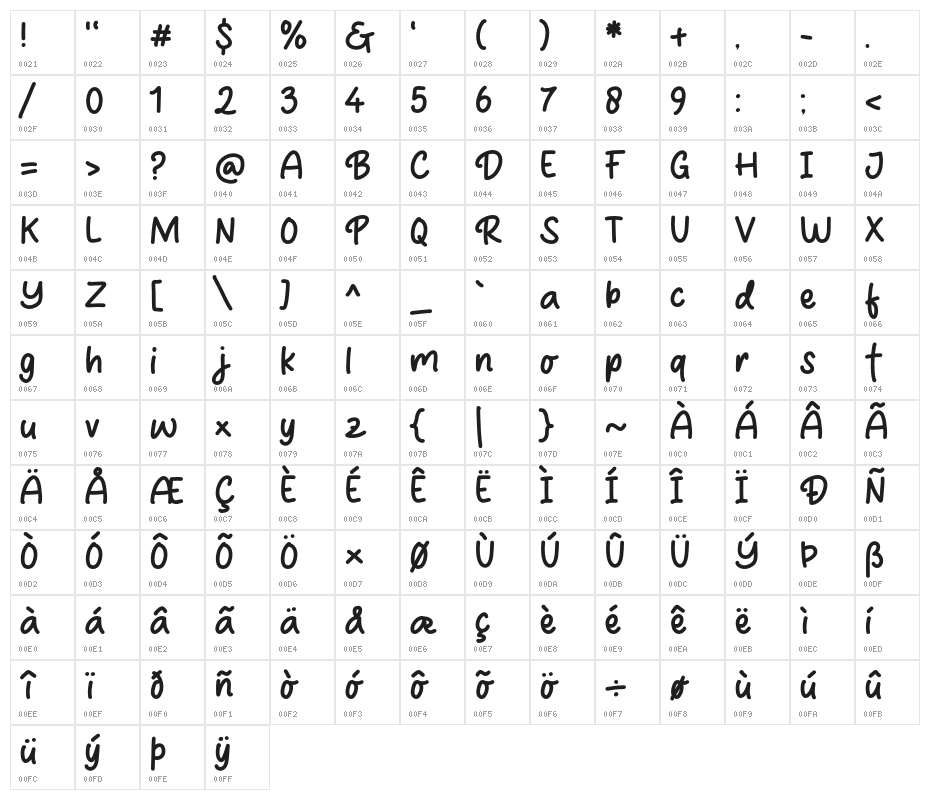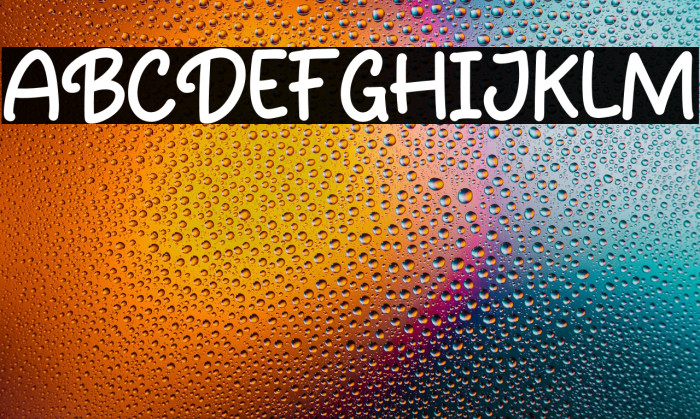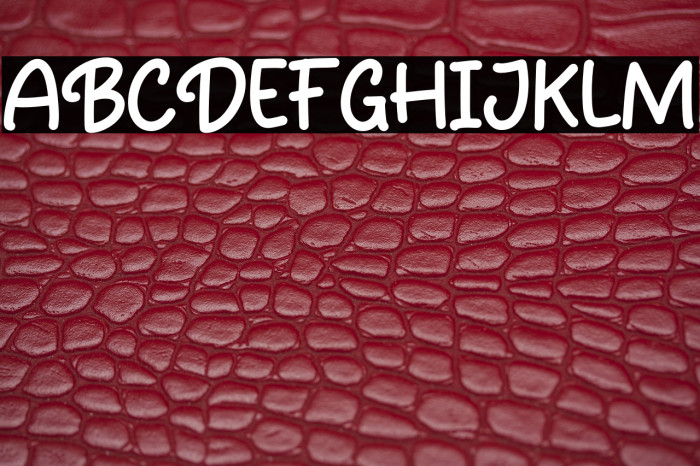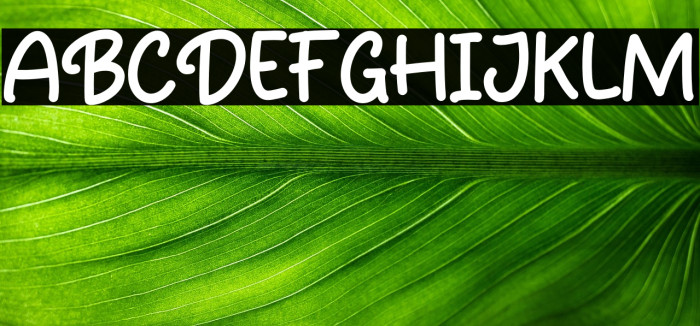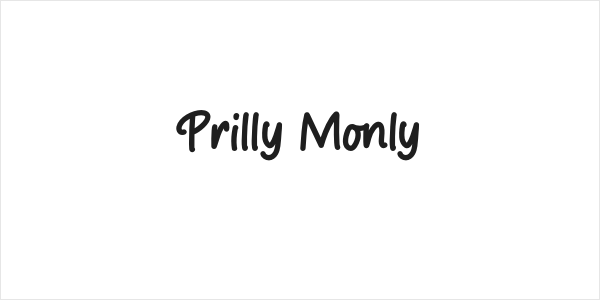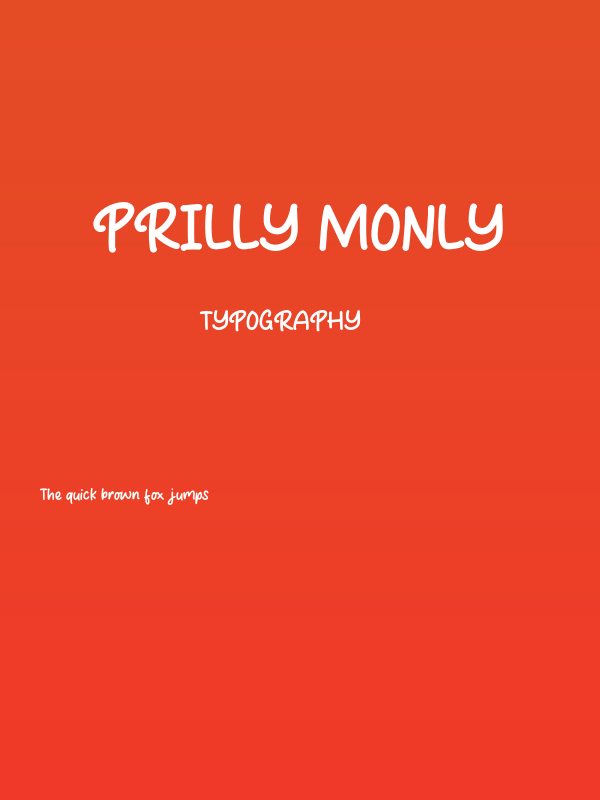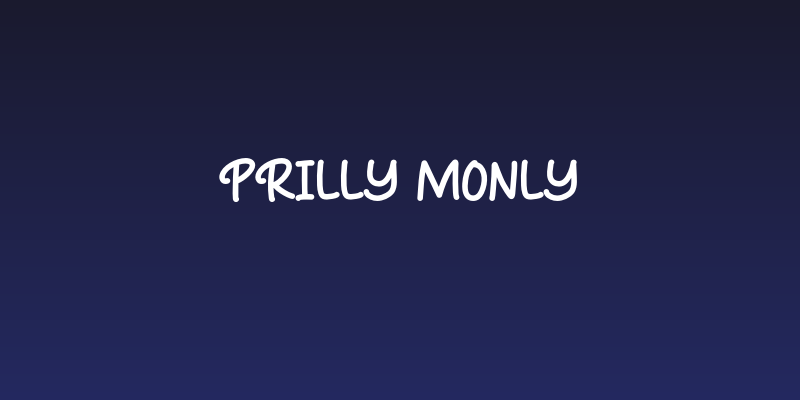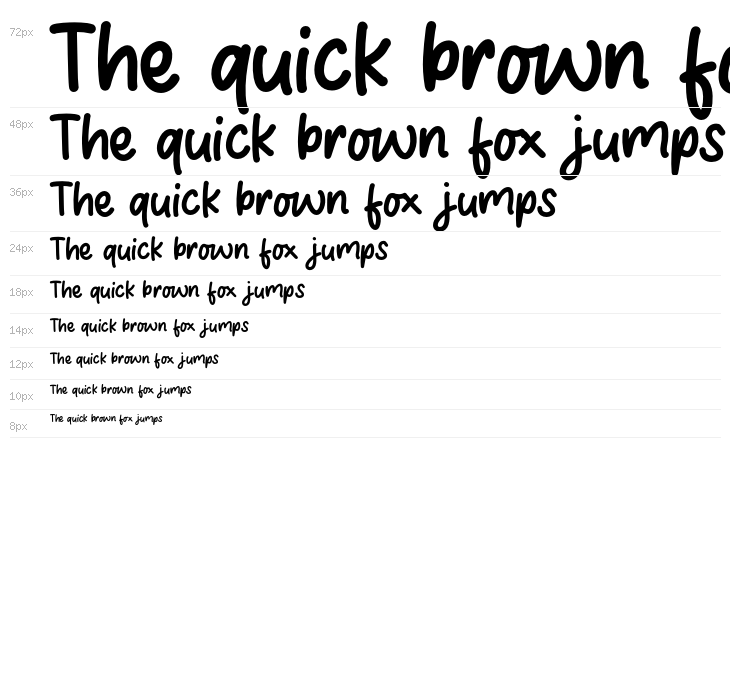
Prilly Monly Font
Prilly Monly Description
This playful and energetic font features a handwritten style with a casual and friendly appearance. The letters are bold and rounded, giving them a soft and approachable feel. The strokes are consistent in width, providing a uniform look across all characters. The uppercase and lowercase letters maintain a cohesive style, with slight variations that add to the font's charm. The numbers and special characters are designed to match the overall aesthetic, making the font versatile for various uses. Its informal style makes it perfect for projects that require a personal touch.
| Use Case | Logos, Headlines, Informal Text |
| Proposed Projects | Ideal for greeting cards, children's books, playful branding, and social media graphics. |